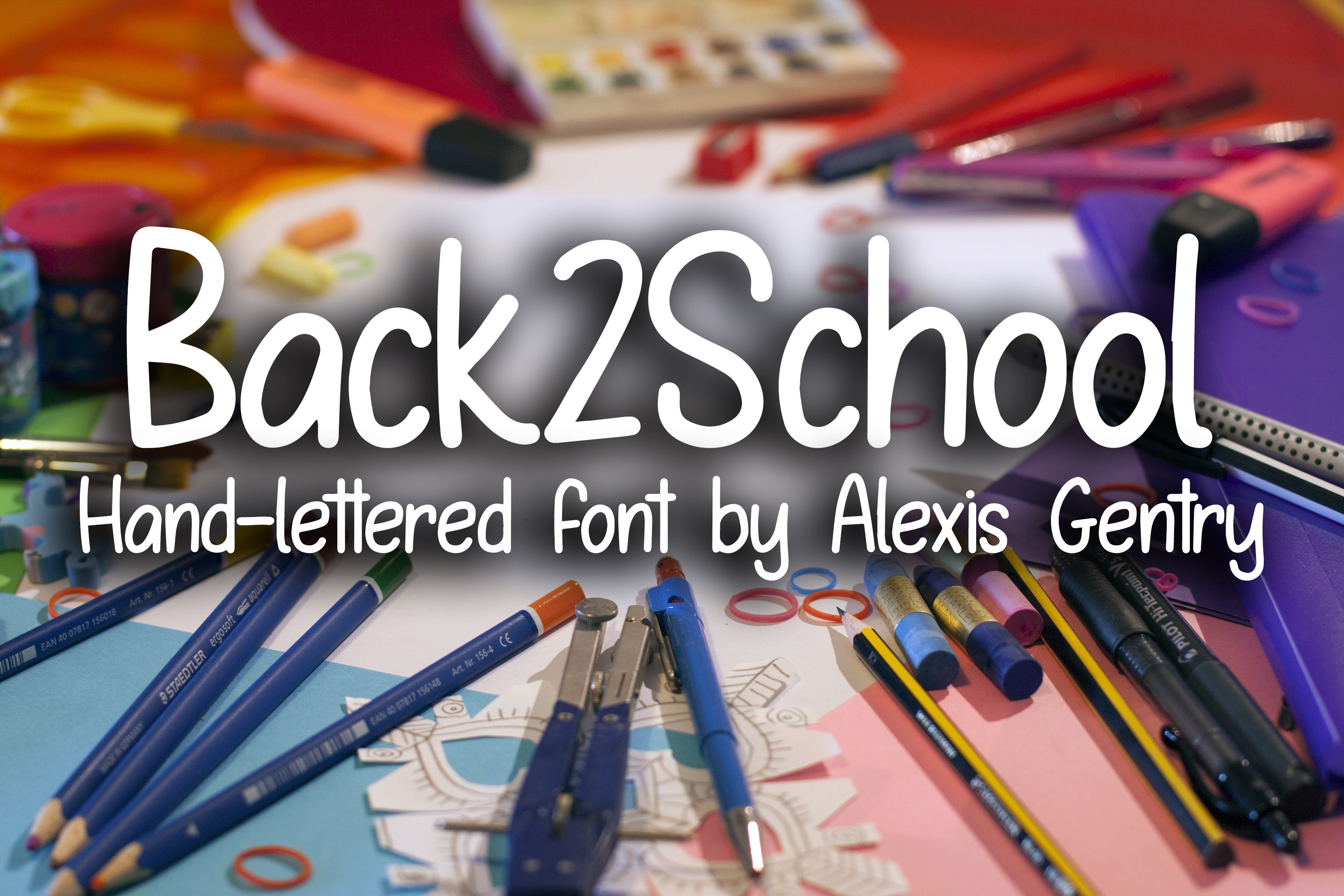
Back2School hand-lettered font
Back2School is a hand-lettered font based on real handwriting. This font is a perfect choice for teachers and students when making projects for the school year.
- Some diacritics